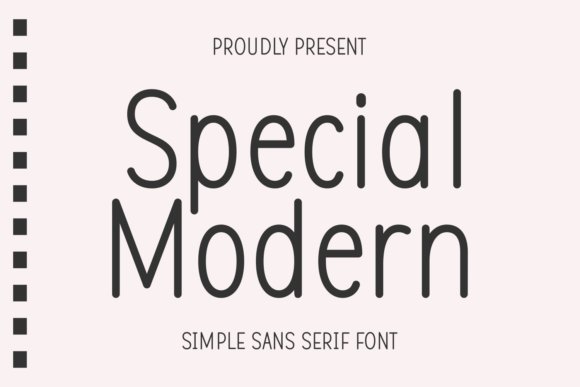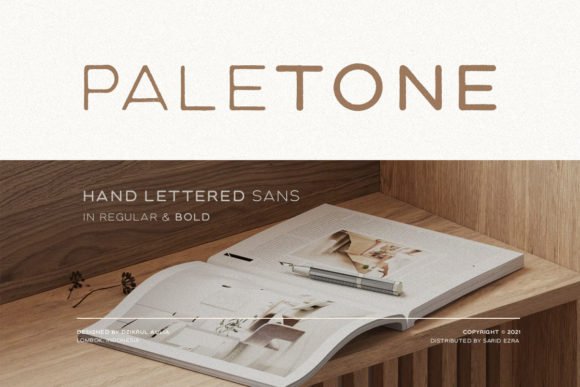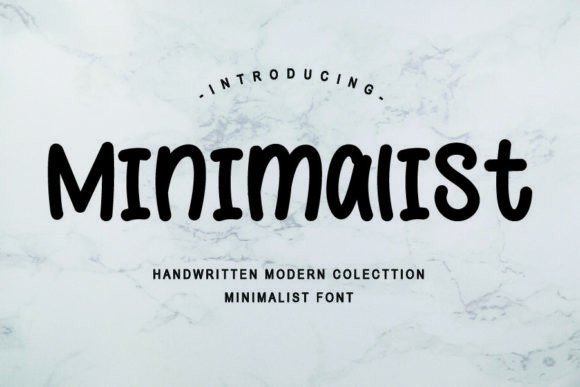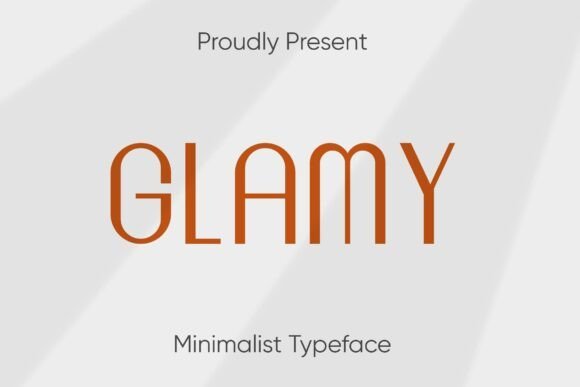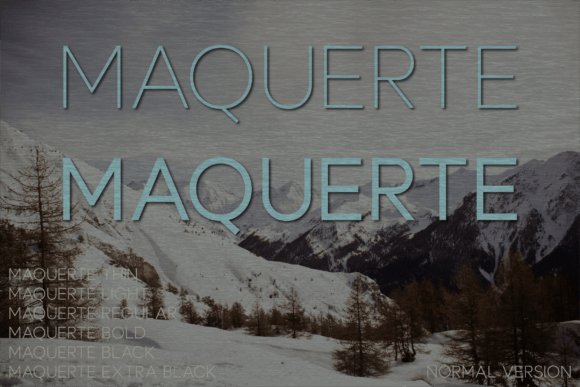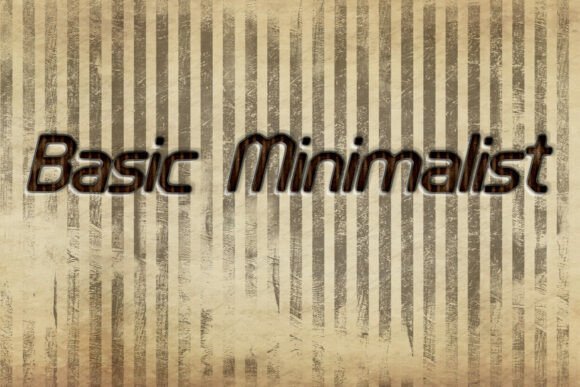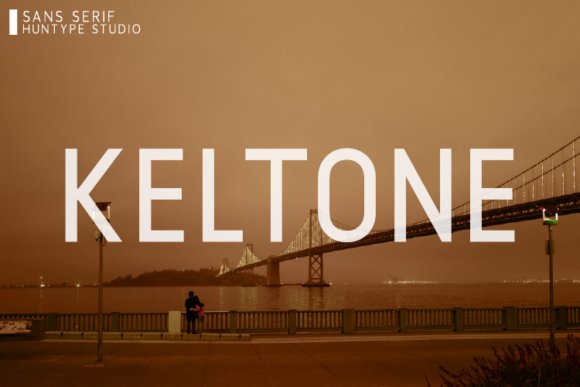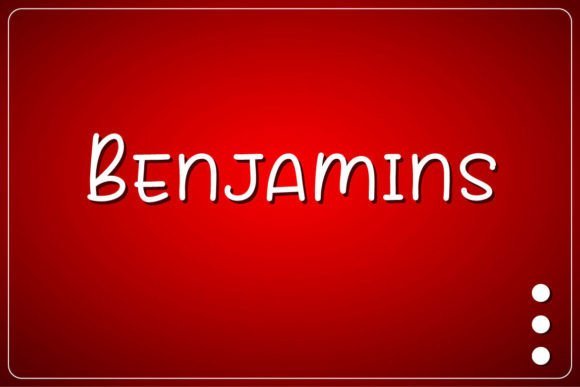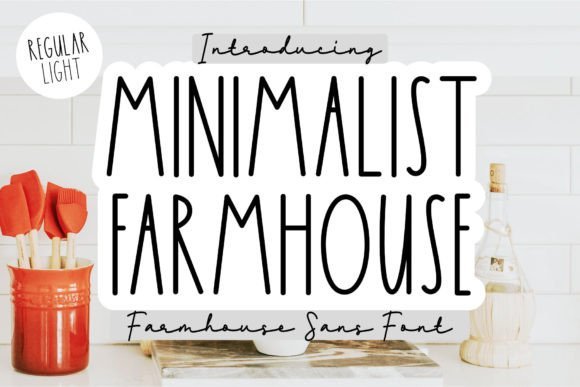
27 Best Minimalist Font Designs in 2026 for Modern Simplicity
If you’re aiming for a modern, clutter-free aesthetic, choosing the right Minimalist Font is essential. In 2026, minimalist typography continues to be a popular trend for creating elegant and straightforward designs that resonate with today’s clean and sophisticated digital landscape.
1. Special Modern Font
Special Modern
Special Modern is a versatile sans serif font that embodies the essence of minimalism with its clean and contemporary aesthetic. Designed with rounded strokes and balanced proportions, this font exudes a friendly yet professional vibe, making it an excellent choice for projects that demand clarity and modern elegance. Its simple yet stylish appearance ensures high readability, making it ideal for branding, editorial layouts, social media graphics, and various everyday design tasks.
With its minimalist charm, Special Modern elevates any visual communication by providing a streamlined and approachable typographic solution. Its balanced curves and neat structure lend a fresh perspective, helping your content stand out without overwhelming the viewer. This font is particularly suited for startups, lifestyle brands, and online platforms aiming for a modern, clean look that resonates with audiences seeking sophistication combined with simplicity.
2. Paletone Sans Serif Font
Paletone
Paletone is a hand-lettered sans serif font that captures an organic and handmade vibe, perfectly aligned with the principles of a minimalist font. Its understated, informal style makes it suitable for projects that aim for a natural, earthy feel—ideal for brands promoting sustainability, wellness, or artisanal products. This minimalist typeface lends itself well to quotes, social media content, and branding materials where a personal, approachable tone is desired.
In addition to its organic aesthetic, Paletone excels in designs that focus on earth tone color palettes, enhancing the connection to nature and authenticity. Its simple yet expressive letterforms lend a unique character that combines the minimalism of clean typography with a handcrafted touch. When used thoughtfully, it can add warmth and personality to your projects while maintaining a sleek and uncluttered look that resonates with modern audiences seeking authenticity and simplicity.
3. Agoma Font
Agoma
Agoma is an exceptional minimalist font distinguished by its sleek, geometric design that embodies modern sophistication. Crafted with geometric precision, this sans serif grotesk typeface offers a bold, eye-catching presence while maintaining excellent clarity. Its crisp lines and sharp angles contribute to a clean, professional appearance, making it an ideal choice for contemporary branding, web design, packaging, and advertising campaigns.
Designed for high legibility even at small sizes, Agoma’s minimalist style elevates headlines, titles, and key messaging with impact and clarity. Its versatile character set includes uppercase and lowercase letters, numbers, and punctuation, providing flexibility across various design contexts. Whether used for digital interfaces or printed media, Agoma’s modern, geometric form creates a striking impression and helps brands establish a polished, current look. For designers seeking a bold, yet minimalist font that combines style and functionality, Agoma provides an excellent solution to craft modern, professional visuals that stand out.
4. Minimalist Font
Minimalist
The Minimalist font exemplifies understated elegance through its clean lines and simple geometric forms, making it a quintessential example of a minimalist font design. Its unembellished style allows it to seamlessly integrate into a variety of creative projects where clarity, professionalism, and modernity are priorities. Ideal for brands aiming for a sleek, contemporary aesthetic, this typeface can elevate corporate websites, user interfaces, and print media by providing a visually unobtrusive yet impactful textual presentation.
Due to its versatile and unobtrusive nature, the Minimalist font is perfect for minimalist branding, editorial layouts, or digital media where a refined and straightforward appearance is desired. Its simplicity also makes it a great partner for bright, bold graphic elements or vibrant imagery, ensuring that the overall design remains harmonious and visually balanced. Whether used for personal projects, professional branding, or marketing campaigns, a minimalist font like this adds a touch of sophistication while maintaining maximum readability and modern appeal.
5. Quadratic Font
Quadratic
Quadratic font stands out as a modern and minimalist typeface that balances geometric precision with a sleek aesthetic. Designed with clean, sharp lines and balanced proportions, Quadratic is particularly well-suited for branding projects that seek to convey innovation, clarity, and contemporary elegance. Its striking simplicity makes it an excellent choice for creating memorable logos, impactful headlines, and eye-catching posters, especially in industries related to technology, fashion, and design.
Incorporating a well-selected Minimalist Font into your projects can significantly enhance readability and visual appeal. Whether for branding, websites, or print, these 27 options offer the perfect blend of simplicity and style for the modern designer in 2026.